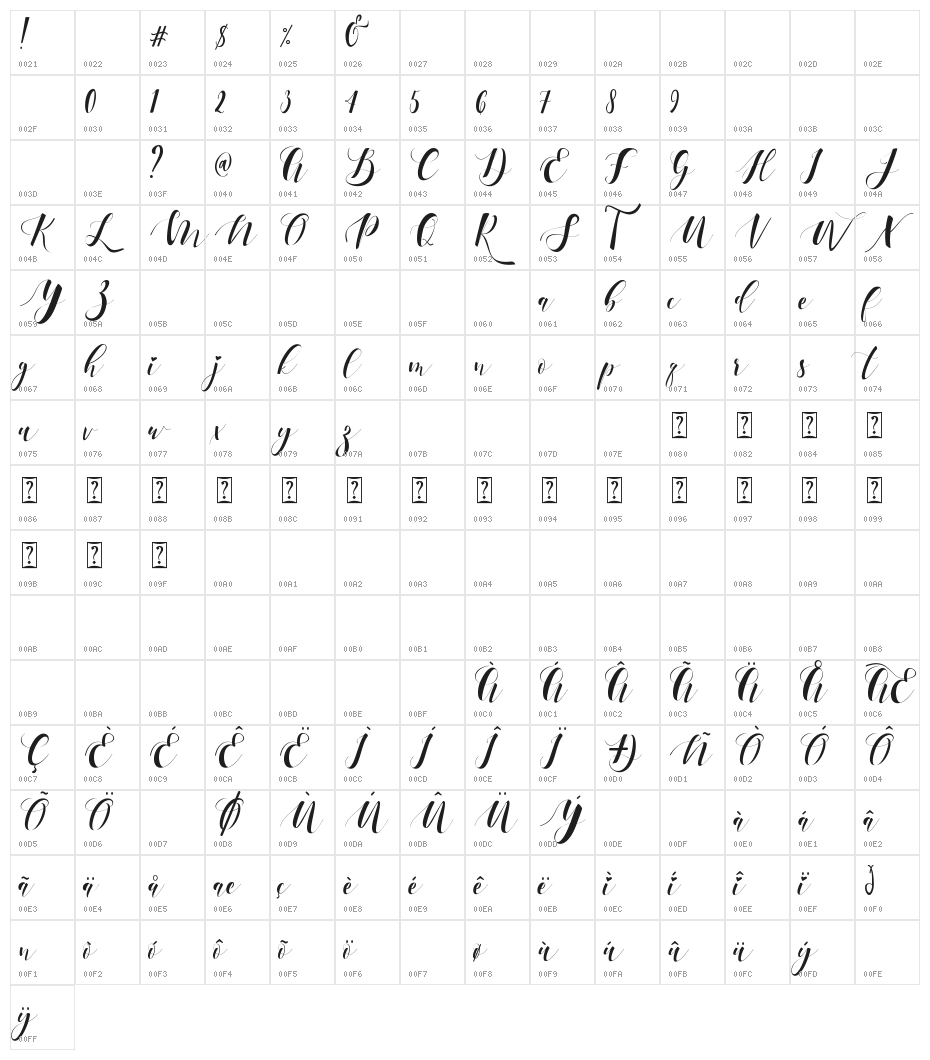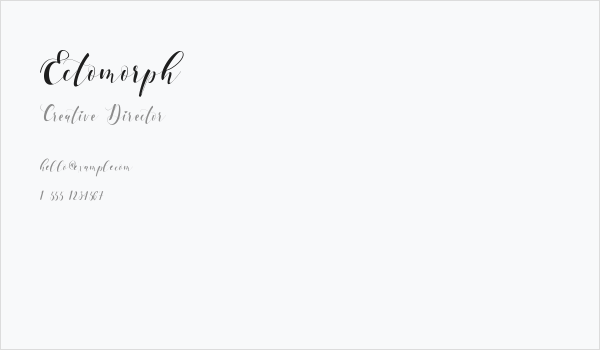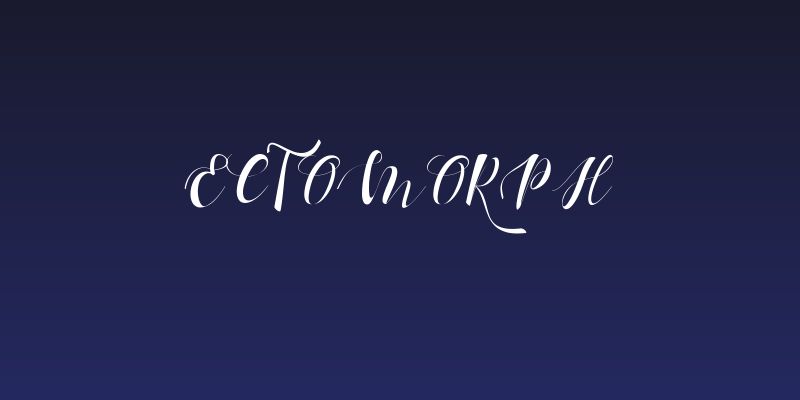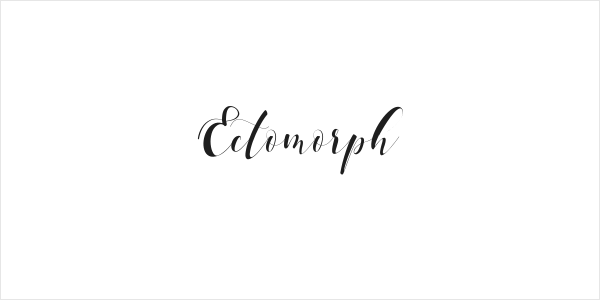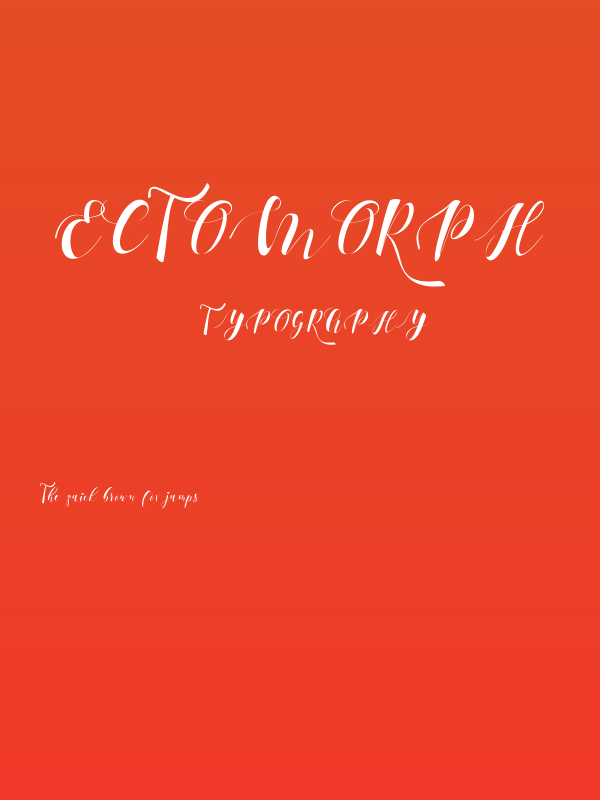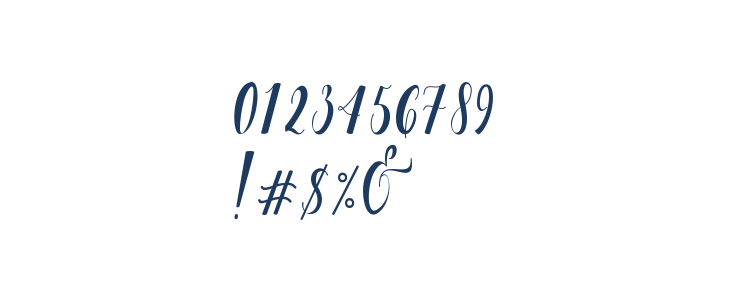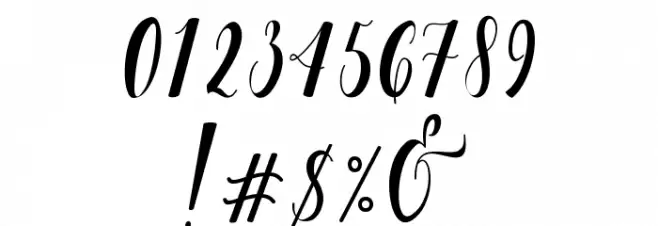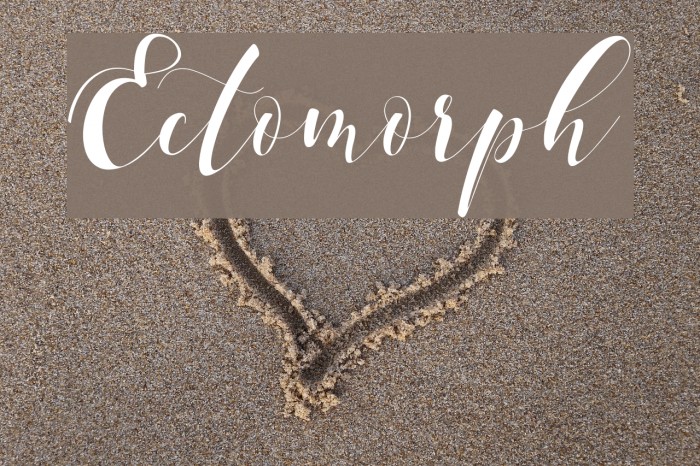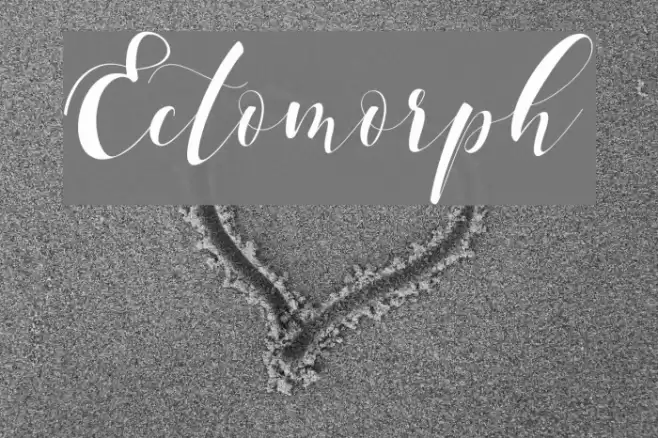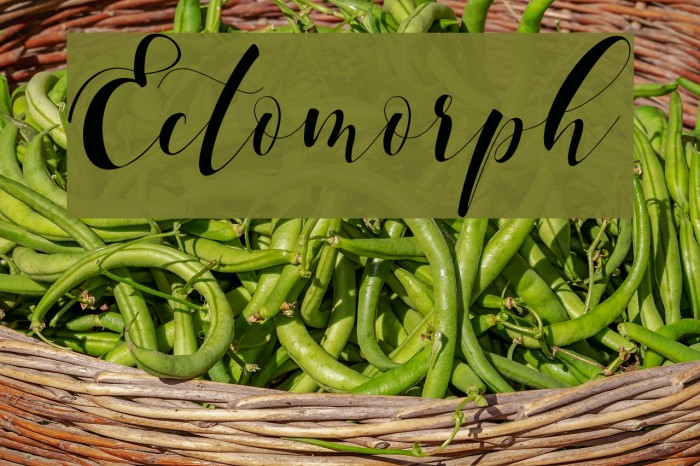
Ectomorph Font
Ectomorph Description
This font features an elegant and flowing script style, characterized by its graceful curves and fluid strokes. The uppercase letters are ornate, with sweeping ascenders and descenders that give a sense of movement and sophistication. The lowercase letters maintain a consistent style, complementing the uppercase with their own delicate loops and swirls. The numerals are equally stylish, integrating seamlessly with the overall design. Special characters are crafted with the same attention to detail, adding to the font's versatility. This font is ideal for projects that require a touch of elegance and charm.
| Overall Style | Elegant |
| Use Case | Logos, Invitations, Decorative headlines |
| Proposed Projects | Wedding invitations, luxury branding, elegant stationery, and decorative headlines. |